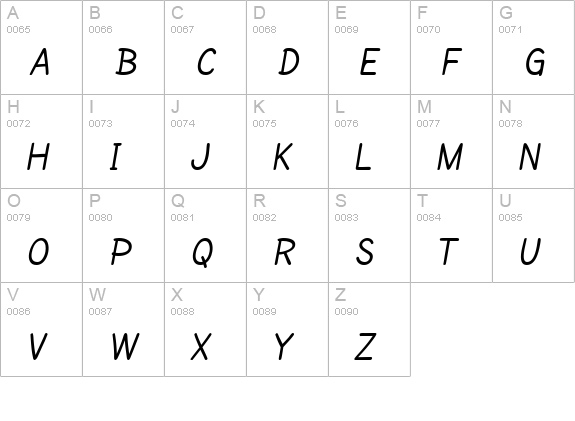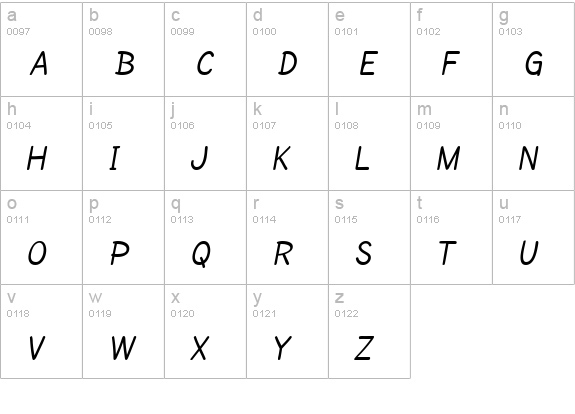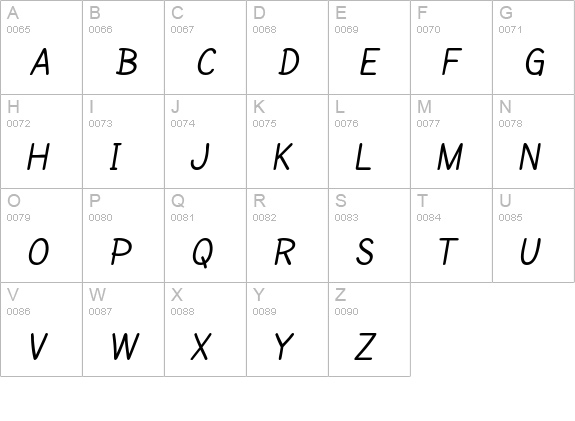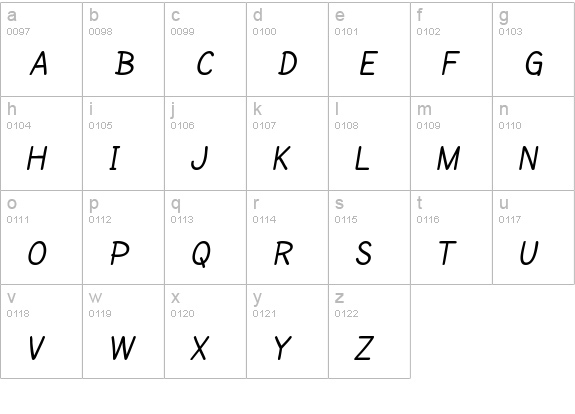
SF Cartoonist Hand SC Font Details
SF Cartoonist Hand SC is a whimsical and playful font that brings a sense of fun and lightheartedness to any design project. This font is perfect for creating eye-catching cartoon illustrations, children's books, comics, and more. Its charming and slightly imperfect letterforms give a hand-drawn feel, adding a touch of personality to your designs. The SF Cartoonist Hand SC font is not only visually captivating, but it also offers the added bonus of being free. Yes, you read that right - this incredible font is freely available to download at FontsMarket.com. Now you can add a delightful touch to your creations without breaking the bank. Whether you're designing a poster for a school event, creating a logo for a children's brand, or crafting a birthday card for a loved one, SF Cartoonist Hand SC is the perfect choice. Its versatility allows you to experiment and play with different styles and sizes, giving you the freedom to truly unleash your creativity. So why wait? Embrace the joy and excitement that SF Cartoonist Hand SC brings to your designs. Download it for free today at FontsMarket.com and let your imagination run wild. Get ready to captivate your audience with a font that is both charming and accessible.